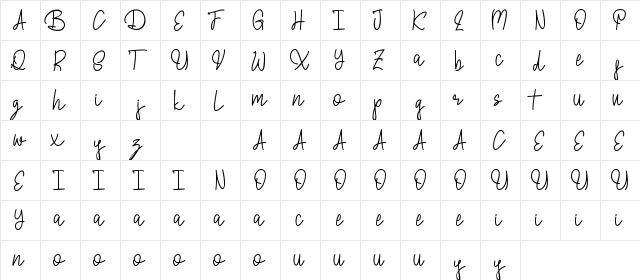
Ditho Regular
Design Context for Ditho Typeface
Ditho is a composed and adaptable typeface that performs quietly and consistently across a wide range of design contexts.